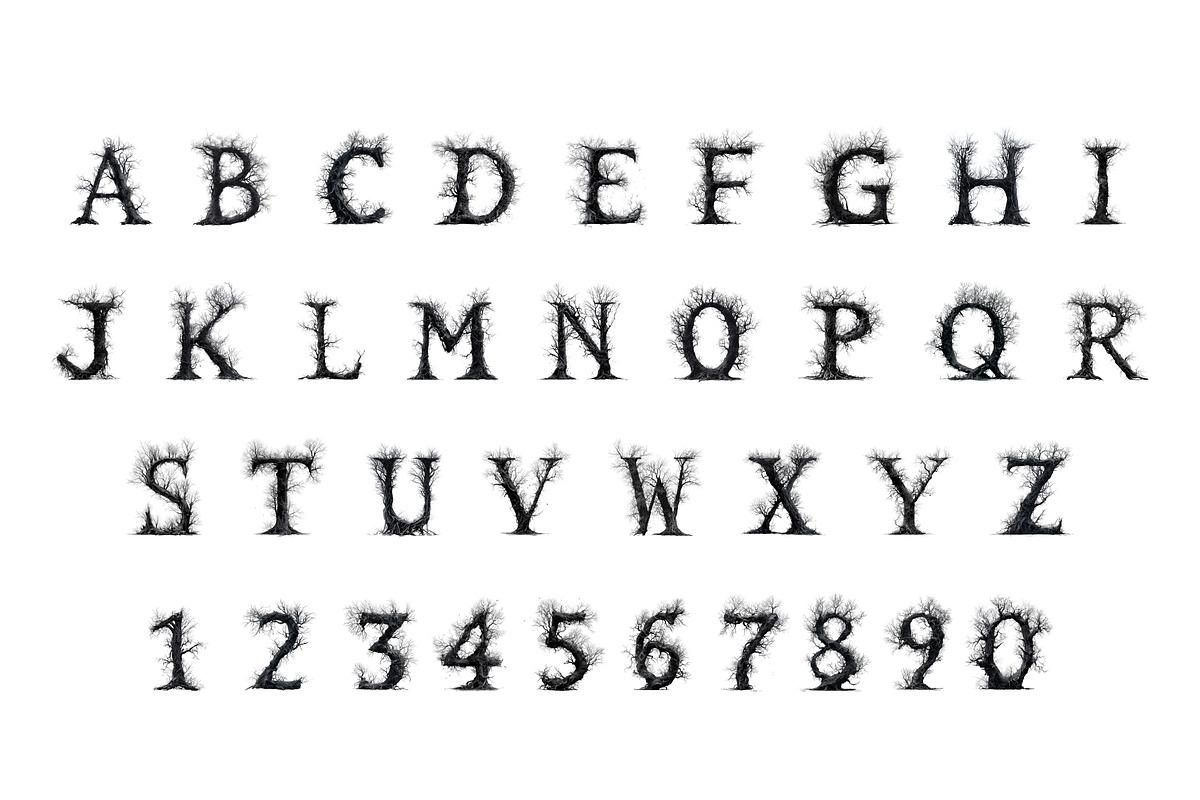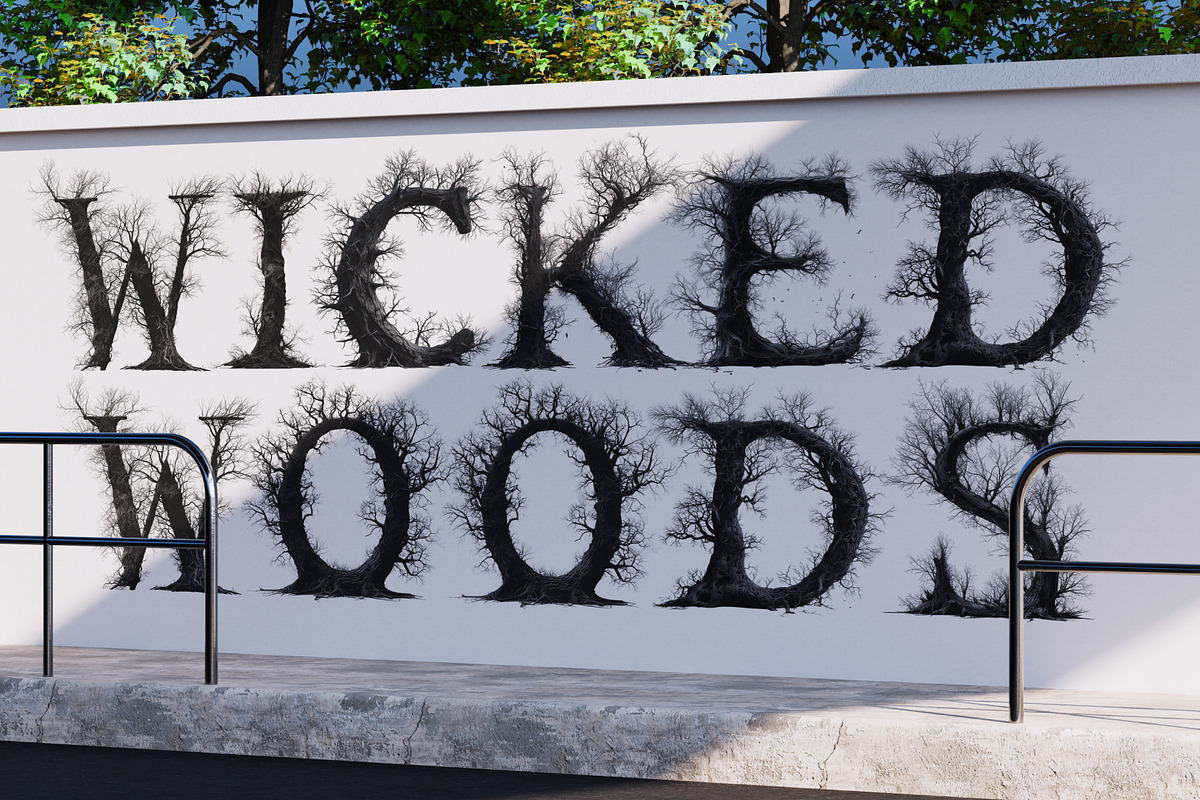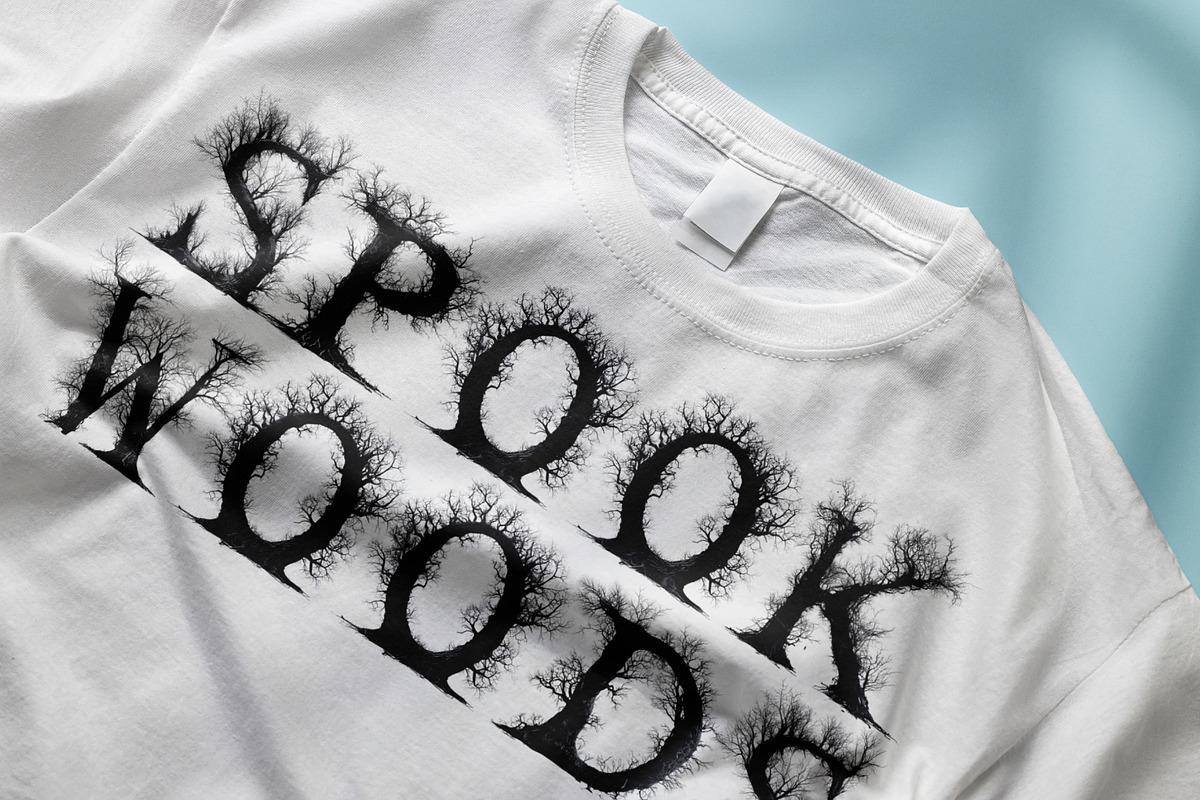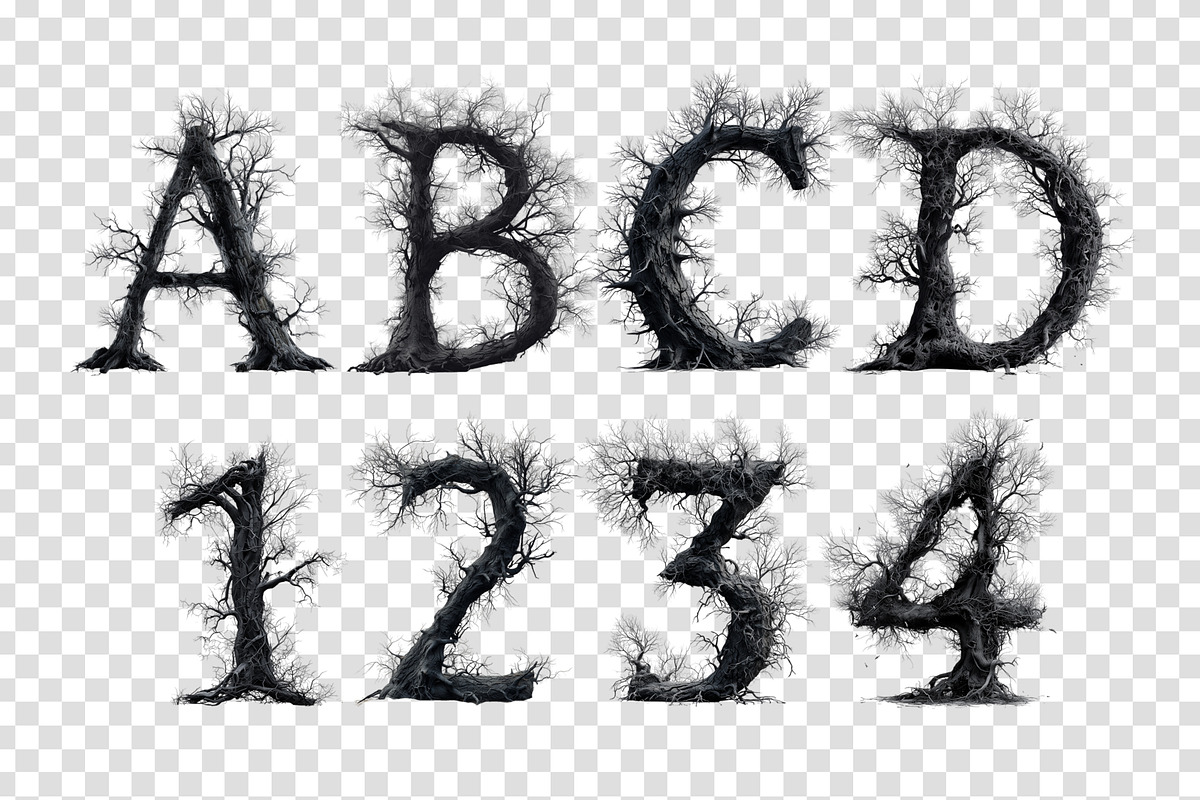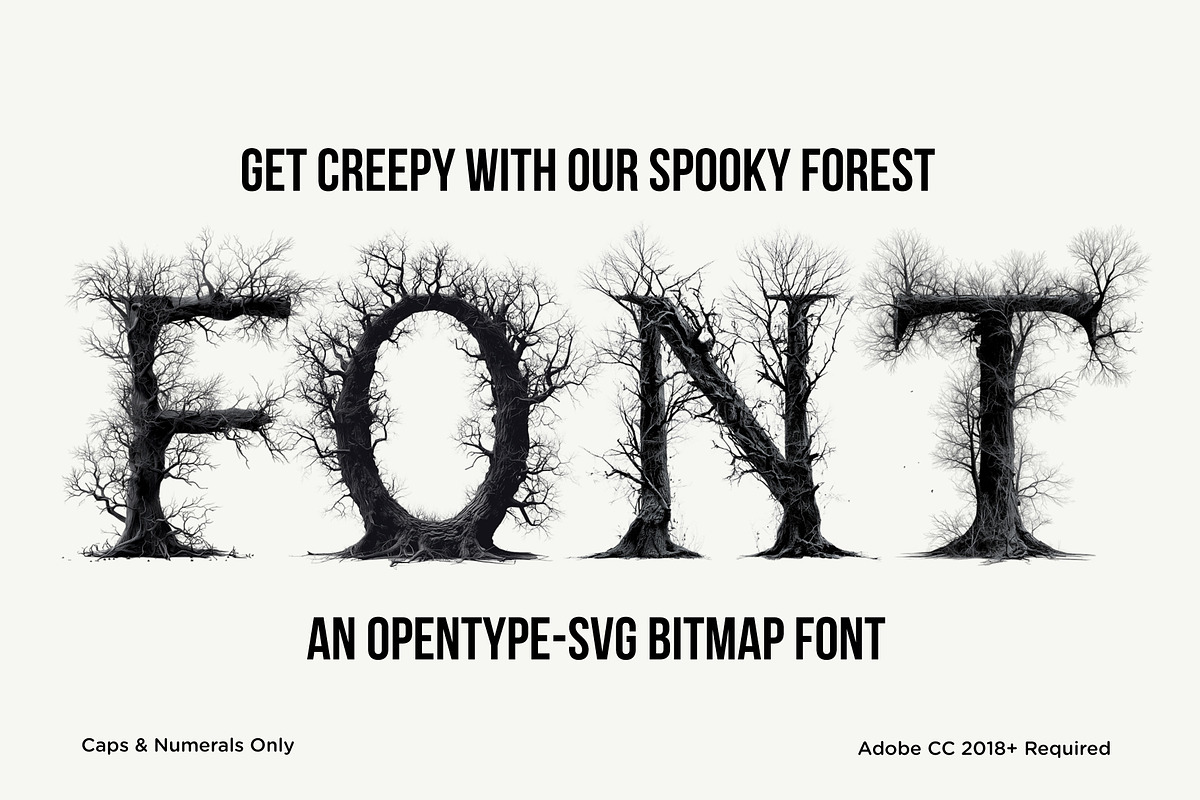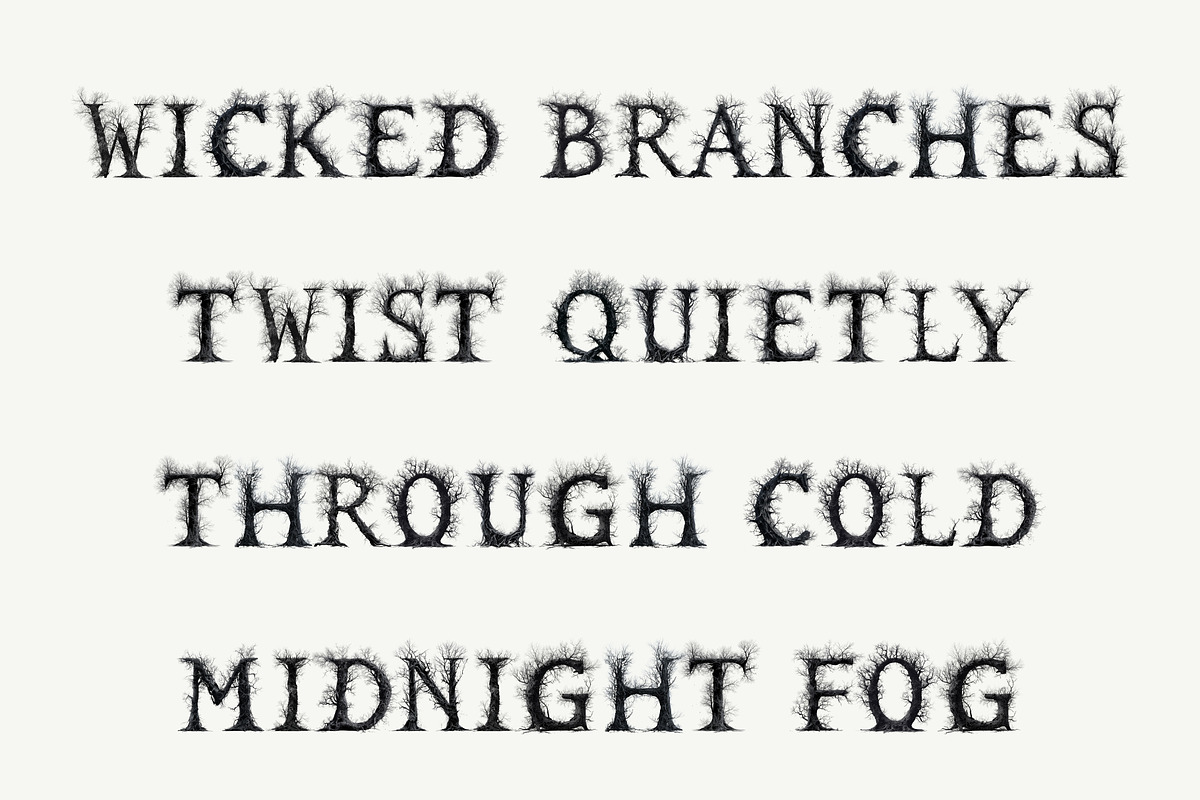
Spooky Forest
Spooky Forest is a dark, atmospheric display typeface built from twisted trees, tangled roots, and bare forest branches. Each character looks grown from gnarled wood, with dense bark texture, creeping limbs, and organic details that feel pulled straight from a haunted woodland. The result is a highly detailed 3D tree font that feels eerie, natural, and cinematic with no additional effects required.
Use it for horror posters, Halloween graphics, fantasy covers, haunted attractions, apparel and merch, album art, book covers, event flyers, dark branding, social media graphics, or anything that needs an unsettling woodland atmosphere. Spooky Forest works best at large sizes where the branches, roots, and bark details can fully show. This OpenType SVG bitmap font includes uppercase letters and numerals only. Every glyph is rendered with high resolution tree texture baked directly into the font file, giving you the complete dimensional look with zero effects.